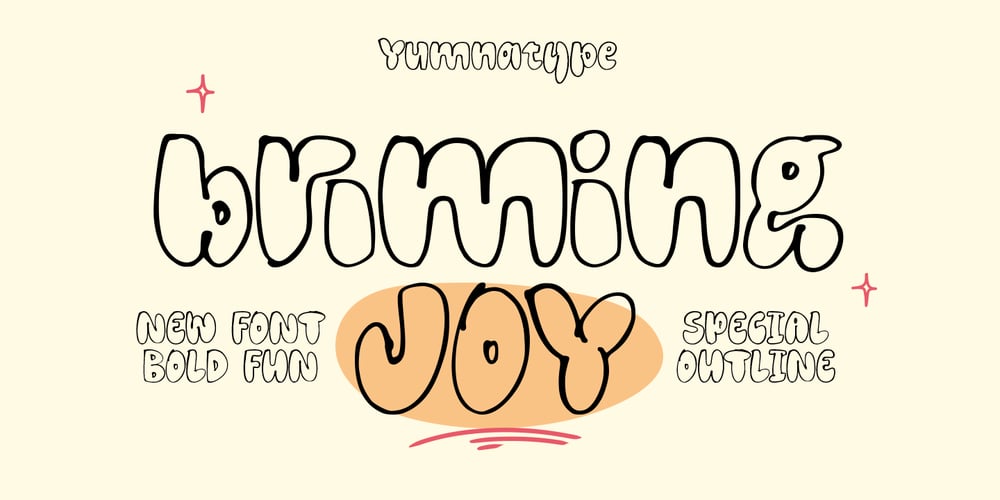
Briming Joy Font Family was designed by Donis Miftahudin and published by Yumna Type. Briming Joy contains 1 styles and family package options. Brimming Joy is a delightful display font that radiates warmth with its inviting design. Each letter in Brimming Joy is meticulously designed with rounded shapes that add a friendly quality to your text. The very thick weight of the font gives it a bold and vibrant presence, while the low contrast ensures clarity and legibility in any size. What sets Brimming Joy apart is its playful style, which adds a sense of whimsy and charm to the font. In addition, enjoy the features here.Features: Ligatures Multilingual Supports PUA Encoded Numerals and Punctuations Brimming Joy fits in headlines, logos, posters, flyers, branding materials, print media, editorial layouts, and many more designs. Find out more ways to use this font by taking a look at the font preview.Thanks for purchasing our fonts. Hopefully, you have a great time using our font. Feel free to contact us anytime for further information or when you have trouble with the font. Thanks a lot and happy designing.